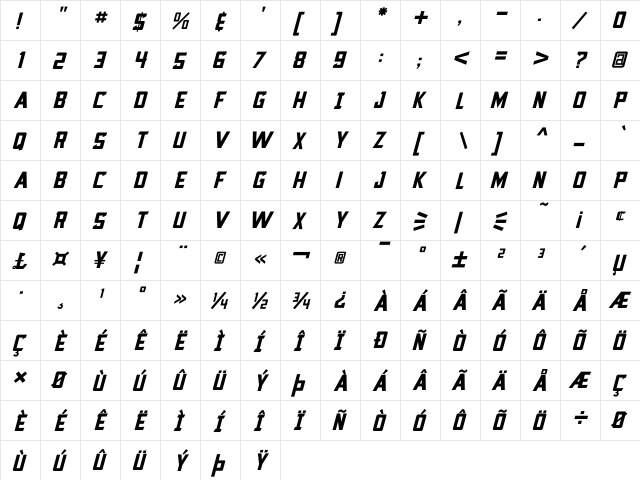
Fatcat Italic Font Preview
Fatcat Italic
Fatcat Italic Font Details
| Foundry | Jason L. Arthur |
| Designer | Jason L. Arthur |
Design Context for Fatcat Typeface
Fatcat offers clean, dependable letterforms without strong stylistic allegiance, making it a practical choice for designers who need flexibility. The slanted form adds forward momentum and visual energy.
Pro Tip: Try Fatcat for annotation and caption copy alongside an upright companion — the contrast in angle creates a dynamic but ordered typographic system.